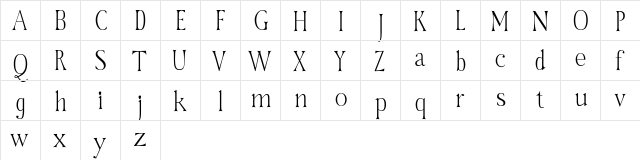
Hybridea UltraLight
| Foundry | Leonhard Katschner |
| Designer | Leonhard Katschner |
Design Context for Hybridea Typeface
Hybridea is a composed and adaptable typeface that performs quietly and consistently across a wide range of design contexts. Its slender proportions lend an understated elegance to any composition.